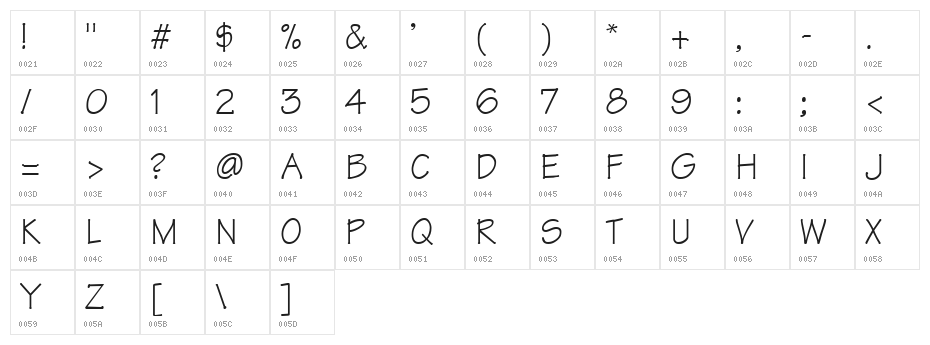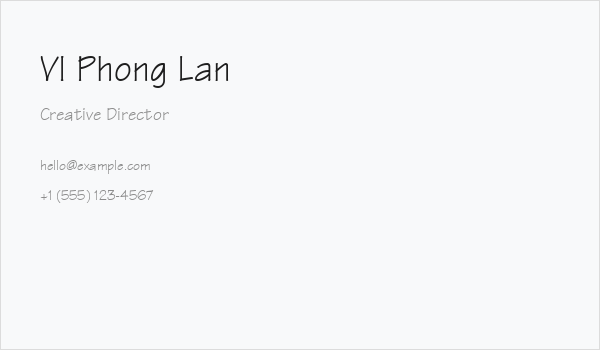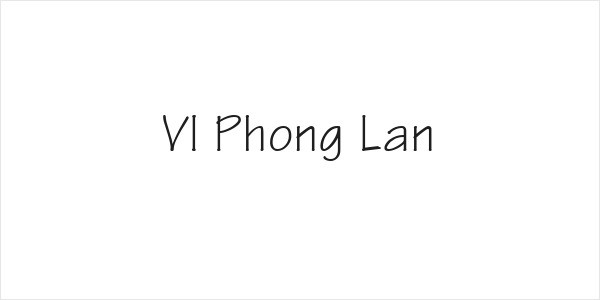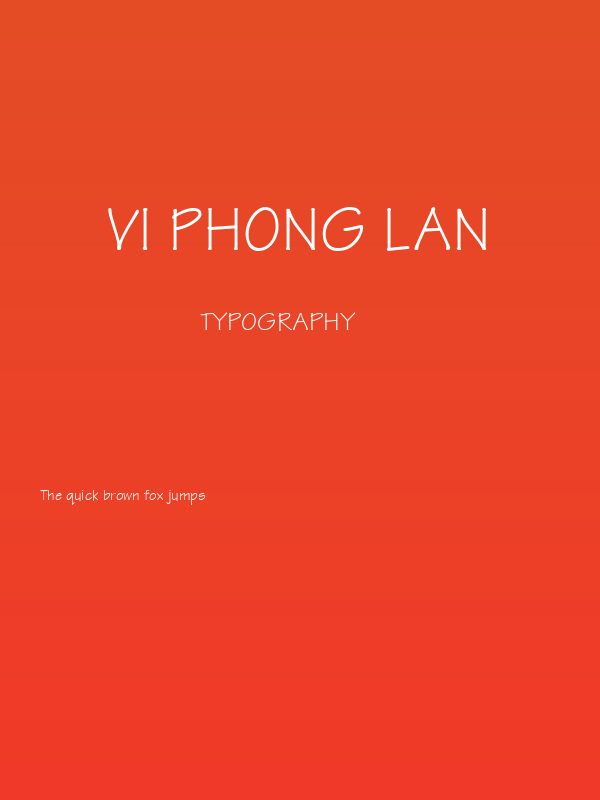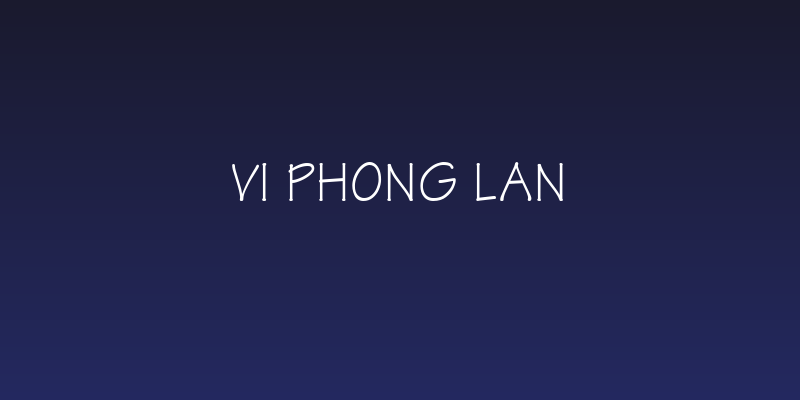
VI Phong Lan Font
VI Phong Lan Description
This font features a playful and casual handwritten style, characterized by its rounded edges and slightly irregular strokes. The uppercase letters are bold and prominent, while the lowercase letters maintain a consistent flow, creating a harmonious balance. The numerals are clear and easy to read, with a slight tilt that adds to the informal aesthetic. Special characters are well-integrated, maintaining the overall whimsical feel. The font's design is approachable and friendly, making it suitable for projects that require a personal touch.
| Proposed Projects | Ideal for children's books, greeting cards, personal blogs, and informal branding. |